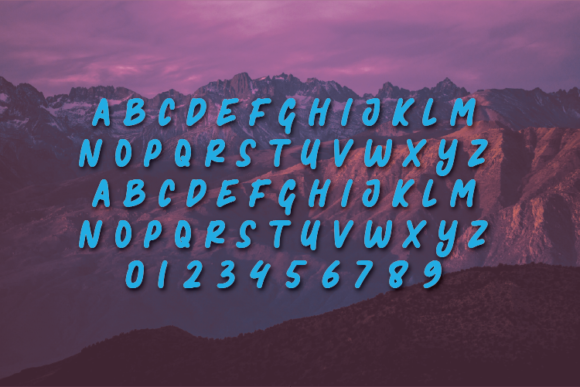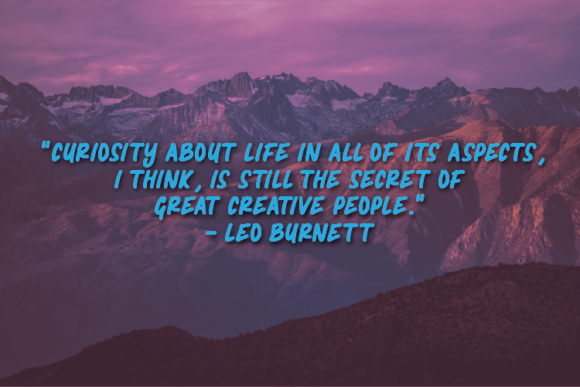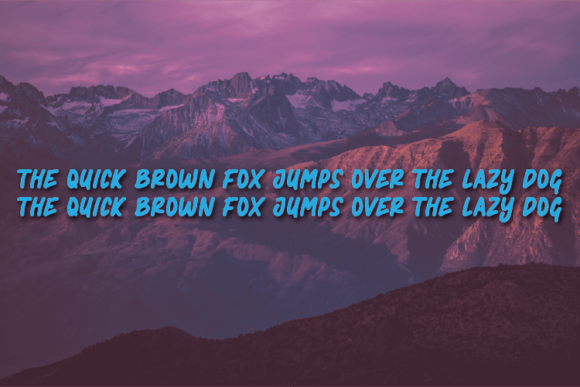
Bholder High Font: Elevate Your Designs with a Natural and Neat Handwritten Style
In the world of typography, a font can make or break a design. It’s the perfect blend of style, elegance, and readability that can elevate a creation from ordinary to extraordinary. If you’re a designer, crafter, or simply someone who appreciates beautiful typography, you’ll love Bholder High Font. This natural and neat handwritten font is an incredible asset to any font library, and we’re excited to dive into its features and benefits.
The Charm of Bholder High Font
Bholder High Font boasts a unique, handwritten style that’s both effortless and elegant. Its natural flow and subtle imperfections give it a human touch, making it perfect for designs that require a personal and approachable feel. Whether you’re working on a project for a client or creating something for your own brand, Bholder High Font will add a touch of warmth and sophistication.
Key Features of Bholder High Font
- Natural and Neat Handwritten Style: Bholder High Font’s handwritten style is both natural and neat, making it versatile enough to work well in a variety of design contexts.
- Exceptional Readability: The font’s clear and legible design ensures that your text remains easy to read, even at smaller sizes.
- Flexibility: Bholder High Font can be used for a wide range of projects, from branding and advertising to packaging and digital media.
- Elegant and Sophisticated: The font’s elegant and sophisticated design makes it perfect for high-end brands, luxury products, and premium services.
Use Cases for Bholder High Font
Bholder High Font is an incredibly versatile font that can be used in a variety of design contexts. Here are some use cases to get you started:
- Branding and Identity: Use Bholder High Font to create a unique and memorable brand identity that stands out from the competition.
- Advertising and Marketing: The font’s elegant and sophisticated design makes it perfect for advertising and marketing campaigns that require a high-end feel.
- Packaging Design: Bholder High Font is an excellent choice for packaging design, adding a touch of elegance and sophistication to product labels and packaging materials.
- Digital Media: The font’s clear and legible design makes it perfect for digital media, including websites, social media graphics, and email marketing campaigns.
Why Choose Bholder High Font?
With so many fonts available, why choose Bholder High Font? Here are a few reasons why designers and crafters love this font:
- Unique and Exclusive: Bholder High Font’s unique and exclusive design sets it apart from other fonts, making it a great choice for designers who want to create something truly original.
- High-Quality Design: The font’s high-quality design ensures that it will look great in any design context, from print to digital media.
In conclusion, Bholder High Font is an exceptional handwritten font that’s perfect for designers and crafters who want to elevate their designs with a natural and neat style. Its unique features, versatility, and high-quality design make it an incredible asset to any font library. Whether you’re working on a branding project, advertising campaign, or packaging design, Bholder High Font is sure to impress. So why wait? Add Bholder High Font to your collection today and take your designs to the next level!